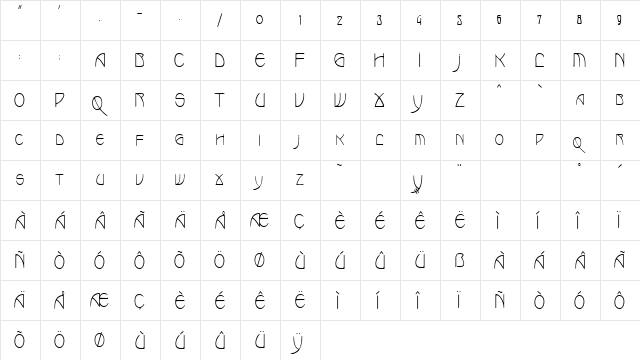
MarloweCondensed Regular
Design Context for MarloweCondensed Typeface
MarloweCondensed offers clean, dependable letterforms without strong stylistic allegiance, making it a practical choice for designers who need flexibility. Its narrow stance lets it pack a punch even in space-constrained designs.